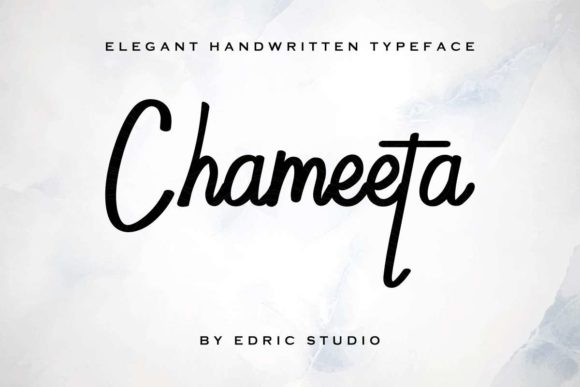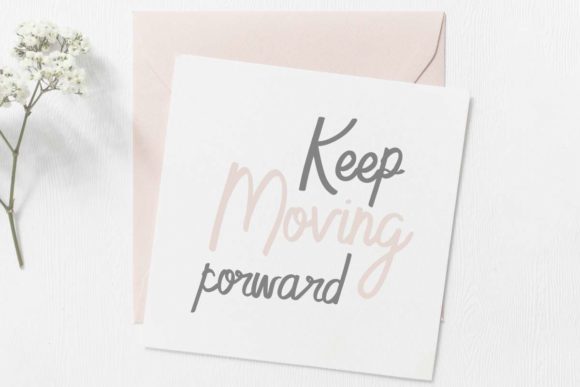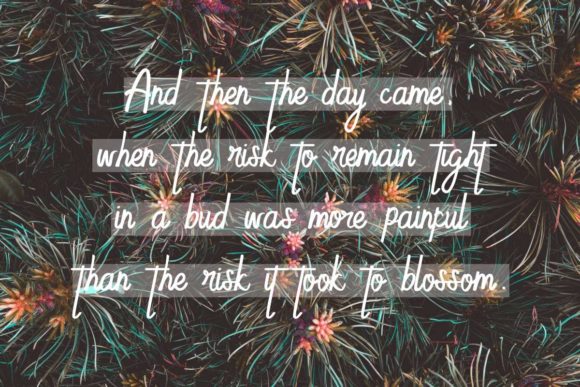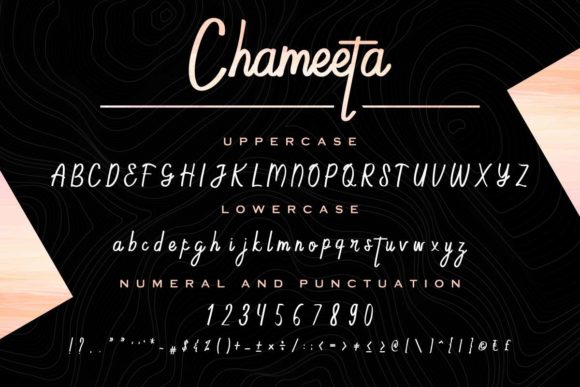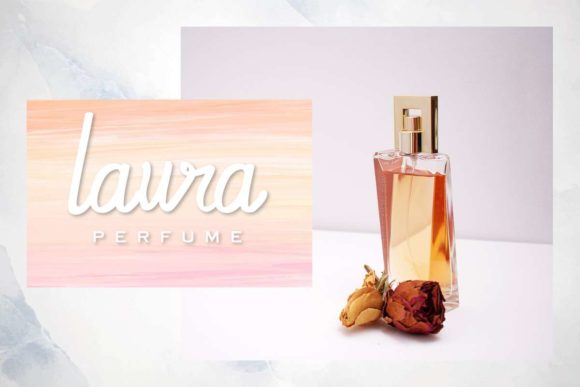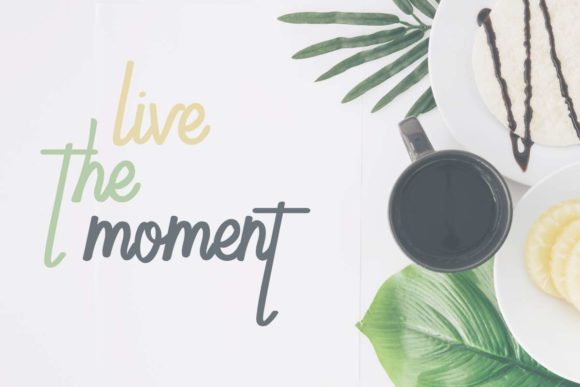
Introduction to Chameeta Font
Have you ever stared at a blank page, desperately searching for the perfect font to bring your creative project to life? For designers, finding that elusive combination of style and sophistication can be a daunting task. But what if I told you there’s a font that can elevate your designs and make them truly unforgettable?
Enter Chameeta Font, a high-quality design resource that’s sure to captivate your audience. With its elegant, modern, and fancy aesthetic, this font is the perfect addition to any design project. Whether you’re working on a branding campaign or a website, Chameeta Font is the perfect choice to make your designs stand out from the crowd.
Key Features of Chameeta Font
- High-quality design resource ideal for creative projects, offering a unique and elegant aesthetic.
- Designed with a focus on clarity and legibility, making it suitable for both body text and headings in various creative projects.
- Includes a comprehensive character set, covering a wide range of languages and characters, making it a versatile design resource.
Honest Review: Chameeta Font
As a designer, I’m always on the lookout for high-quality design resources to elevate my creative projects. Recently, I stumbled upon the Chameeta Font, and I’m excited to share my honest review with you.
- ✨ The font has a beautiful, elegant design that’s perfect for projects requiring a touch of sophistication.
- ⚠️ The font only comes in a single weight, which may not be suitable for projects requiring multiple font weights.
Overall, I’m impressed with the Chameeta Font’s design quality and versatility. While it may have some limitations, it’s a great resource for designers working on creative projects that require a touch of elegance. If you’re looking for a high-quality, free font, I’d definitely recommend giving it a try.
Tips for Getting the Most Out of Chameeta Font
For the best results, use Chameeta Font in conjunction with other high-quality design elements, such as images and graphics. Experiment with different font sizes, colors, and styles to achieve a unique look for your creative project.
Chameeta Font is ideal for use in branding, marketing materials, and creative projects that require a high-quality, professional look. It’s also a great design resource for free download and use in various design platforms.